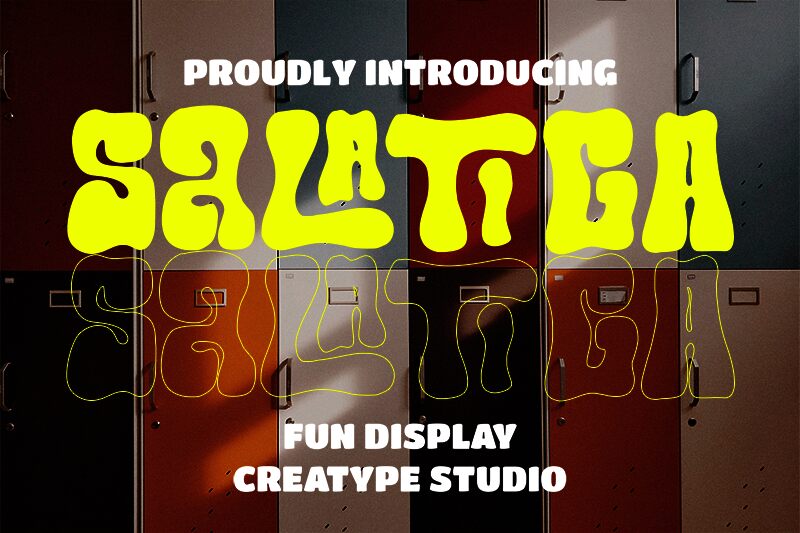
Salatiga font by Creatype Studio is a free display font with groovy and inspiring letters. The retro collection carries rounded letters, quirky features, and organic shapes that keep readers on their toes as they discover a font with a playful aesthetic. Getting creative has never been easier before with this fun and cheerful tool designed for graphic design enthusiasts who wish to bring back the greatness of the past.
The tasty bold type will keep things interesting for album covers and related printed projects like greeting cards or invitations, as well as logos that can be used for stores of different industries like book stores or pastry shops. With Salatiga, your body texts such as magazine articles, posters, flyers, marketing campaigns, or social media platforms will display its delightful art which only gets better when paired with colorful backgrounds that allow its details to shine brighter than ever.